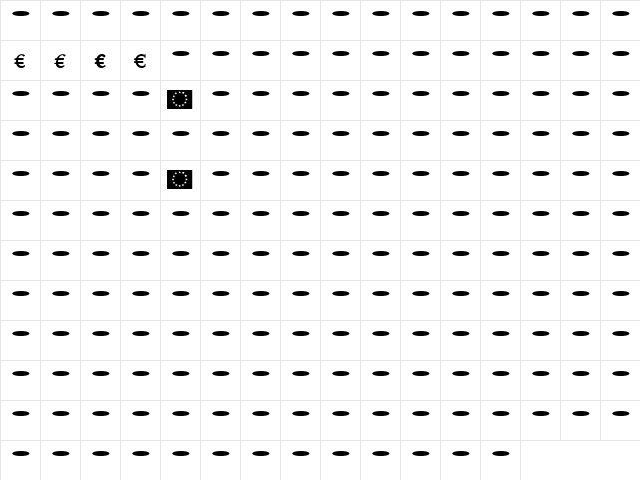
Scala Regular
Design Context for Scala Typeface
Scala offers clean, dependable letterforms without strong stylistic allegiance, making it a practical choice for designers who need flexibility.